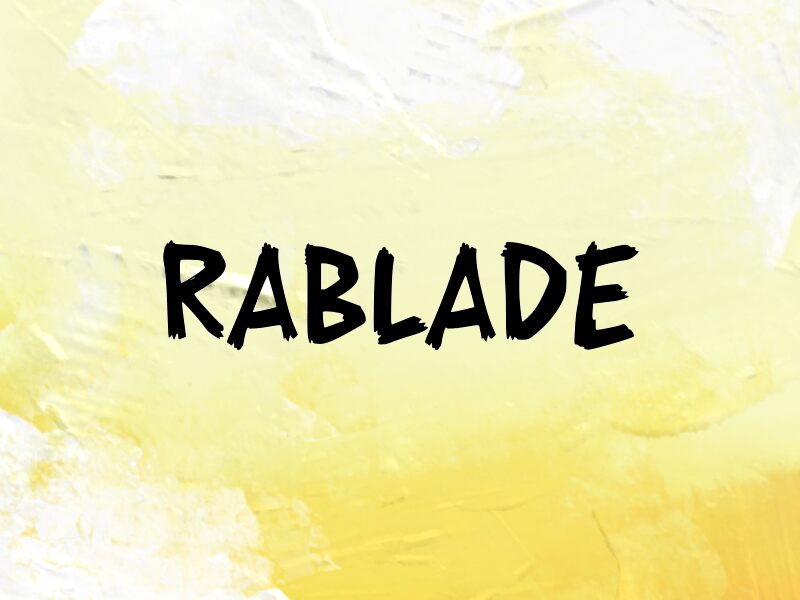
RABLADE
Rablade font by wepfont.com is a free brush font that looks like it was slashed onto the page with a thick, inky marker. The letters are bold, slightly irregular, and a bit gritty, with rough edges that feel raw and energetic rather than polished. There’s a casual confidence to the way each stroke leans and overlaps, giving your words the same punch as a hastily painted poster or a wall tag.
Using Rablade, your headlines and short phrases jump out like fresh black paint on a bright surface. This free font works beautifully for streetwear branding, band posters, YouTube thumbnails, extreme sports graphics, event flyers, and bold merch designs. Keep it large and punchy, and pair Rablade with a clean, light sans-serif for body copy to let its rough, hand-drawn character stay in the spotlight.